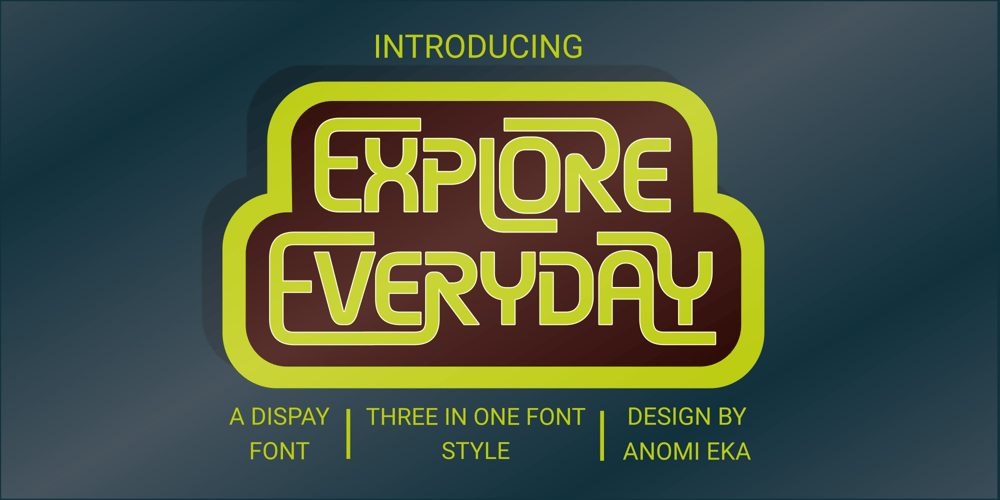
Explore Everyday Font Family was designed by Anomi Eka and published by Anomieka. Explore Everyday contains 1 styles and family package options. Explore everyday is authentic display three style font. You can take advantage of these with any program that supports OTF features. These can also be accessed via the glyphs panel in some programs. NOTE: Because the nature of overlapping glyphs alternates must be selected manually in the Outlines version from the Glyphs panel.Kerning is extremely tight and best displayed at larger sizes.Use it for sport, movie, game, racing designs, or nearly anything related to speed and power